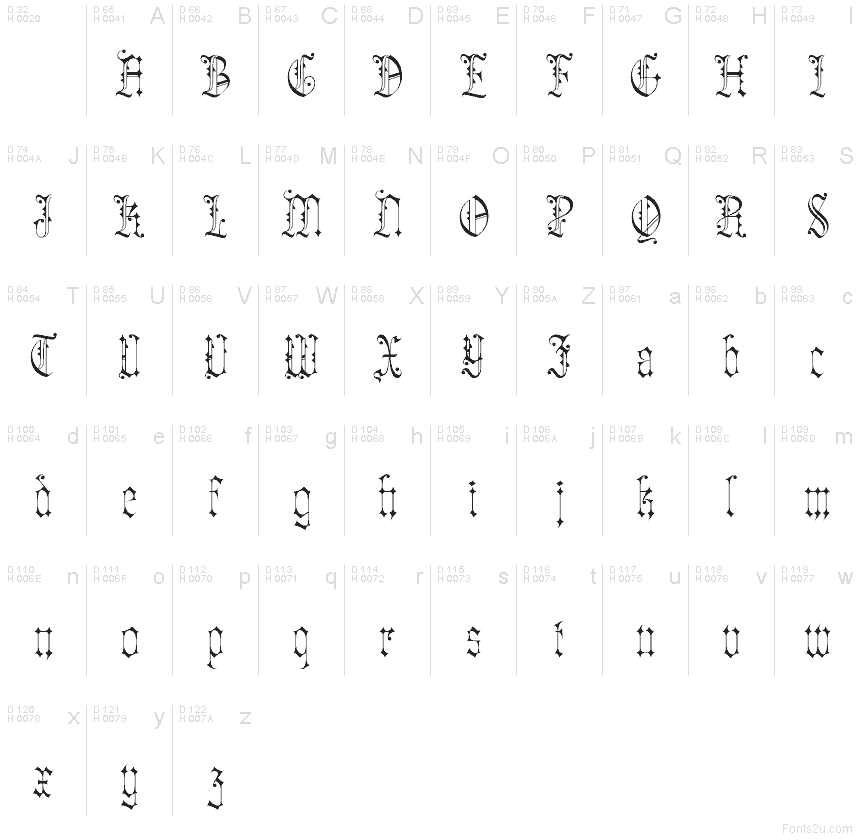
Rosevart Regular Demo
Rosevart font by Craft Supply Co. is a condensed gothic font featuring medieval artistry and dramatic intricacies. Its traditional nature makes for an ornate theme filled with decorative flourishes and historical references worth mentioning. Add an element of luxury and tradition to your artwork with this free font.